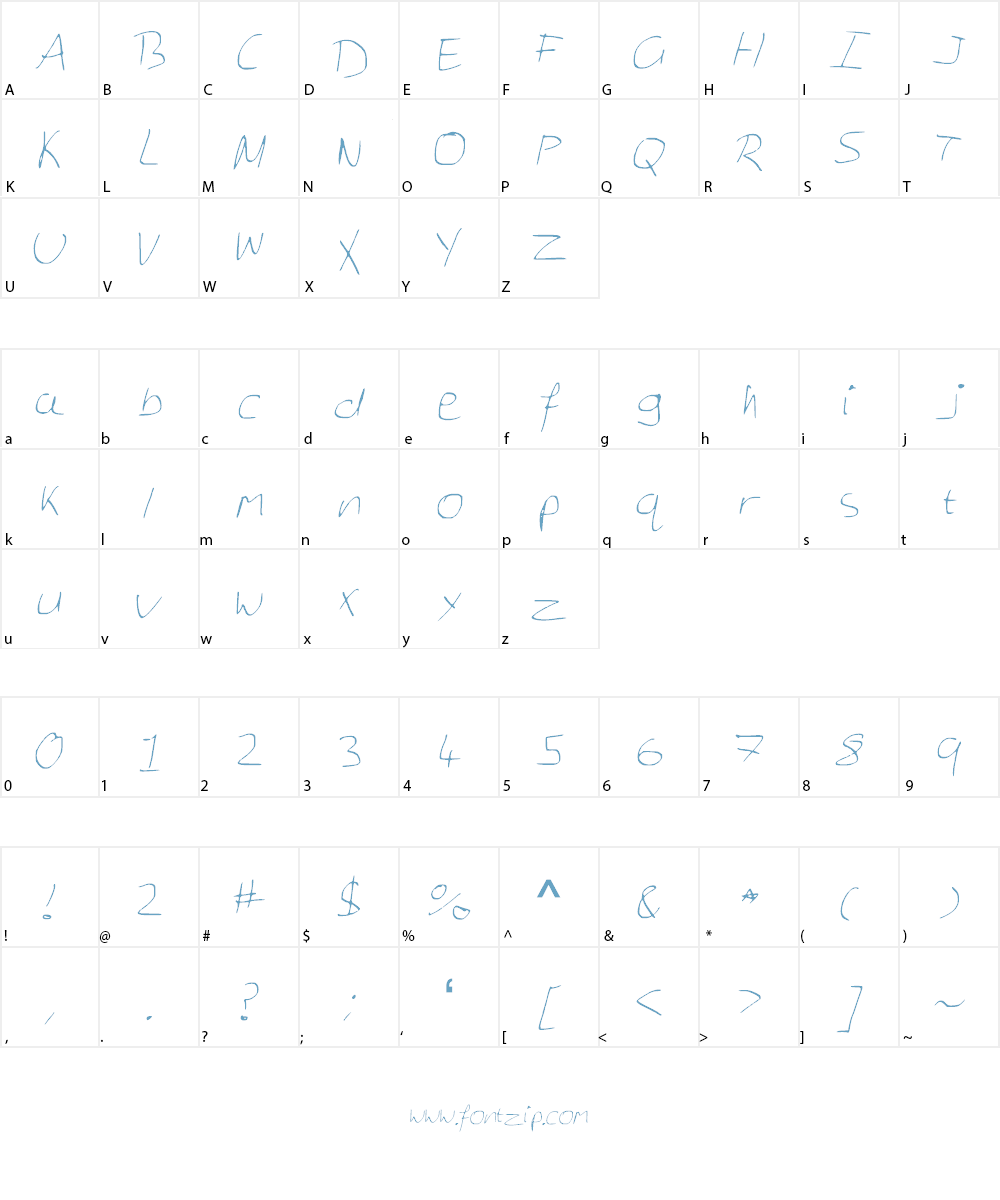
This is simply my 'Notey' writing. I think that it is really different to most other fonts, and really adds to a Homework! If you would like to use my font commercially, then please feel free to email me,  - I just want to keep tabs on where it is going...